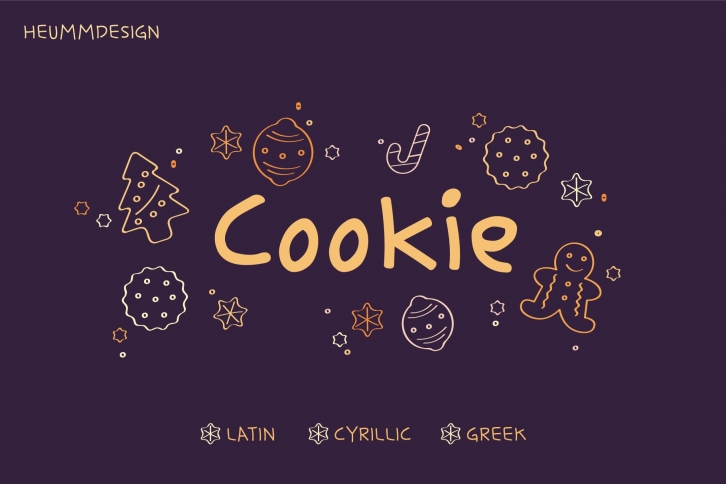
HU Cookie is a cute handwritten typeface that can be used to express any lively or active moment.
The alphabets are not aligned or evenly written but are crooked like scribble, which gives you funny and informal vibe.
There are 2 weights of HU Cookie : Light, Semi bold
- Uppercase & lowercase
- Numbers and punctuation
- Multilanguage (Basic Latin, Western European, Euro, Catalan, Baltic, Turkish, Central European, Romanian, Pan African Latin, Dutch, Afrikaans, Basic Greek, Basic Cyrillic, Mathematical Operators)
- 708 Glyphs